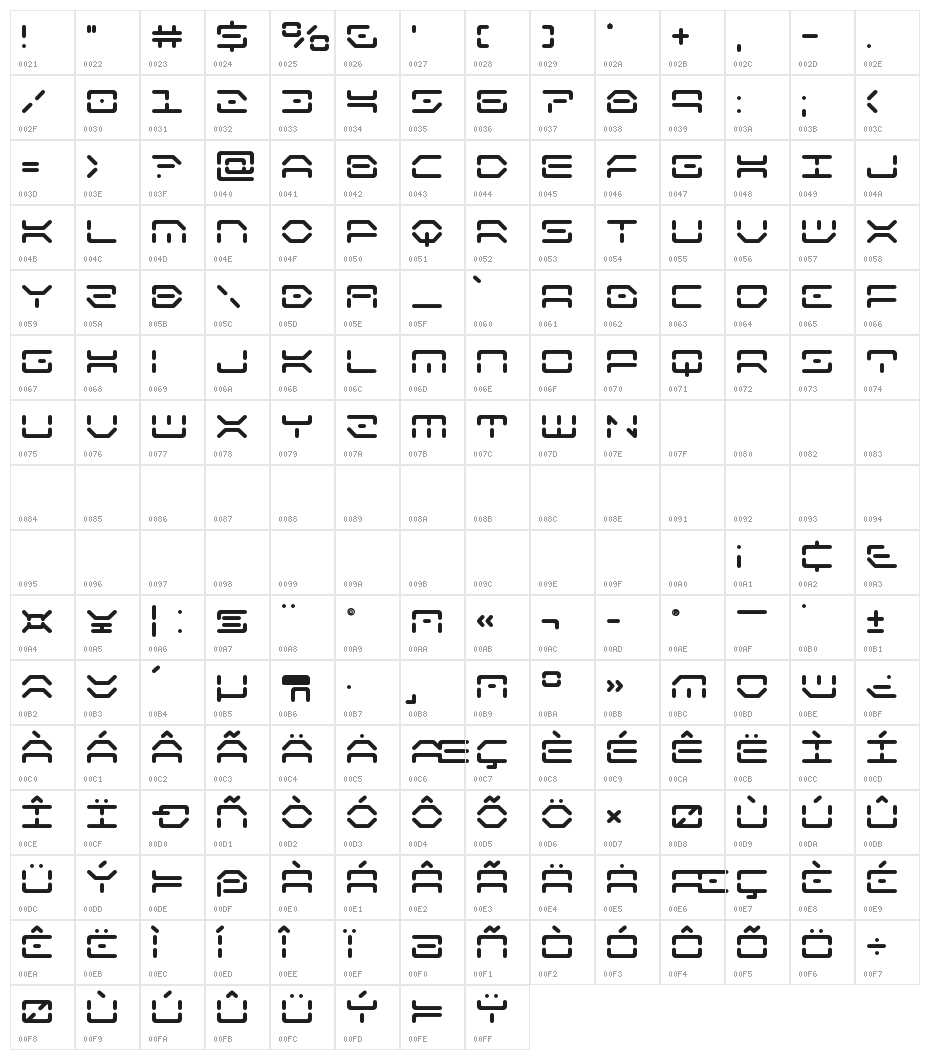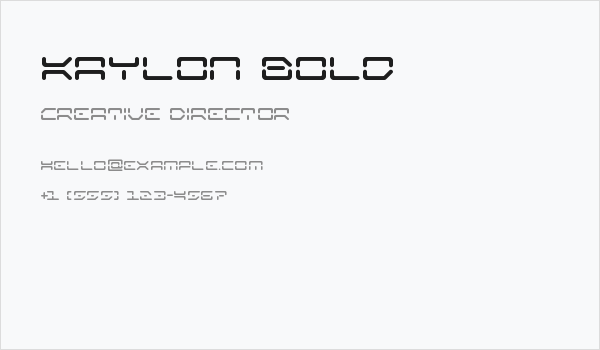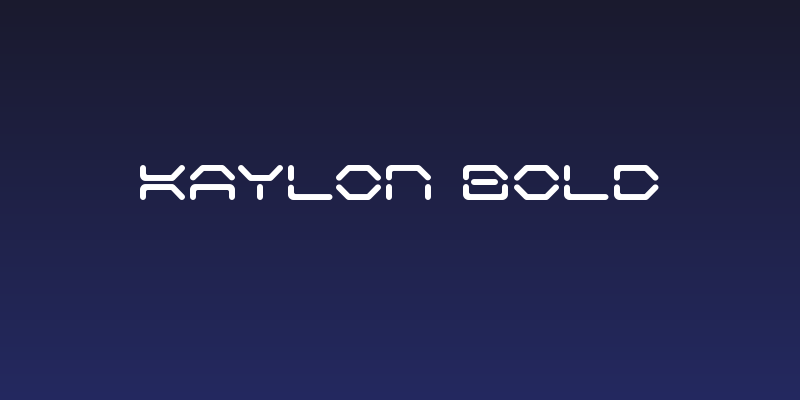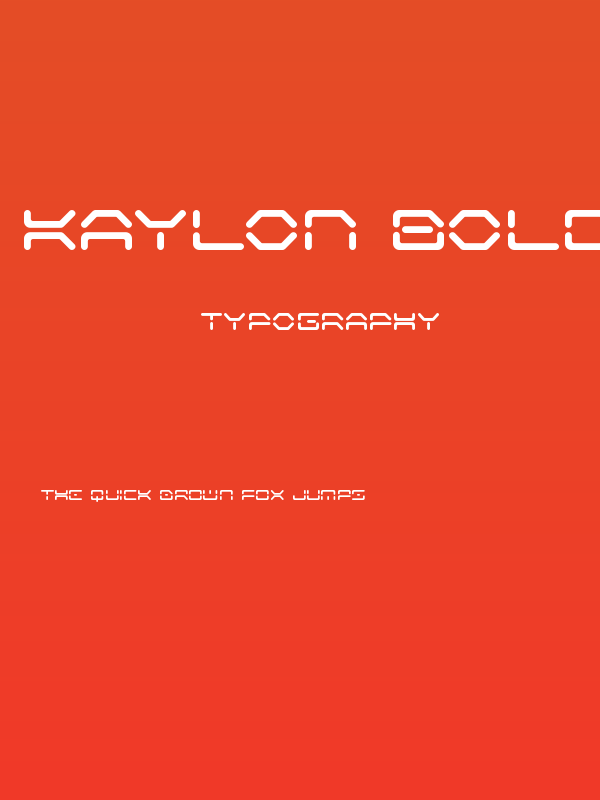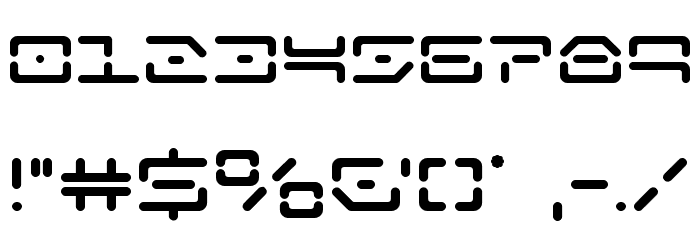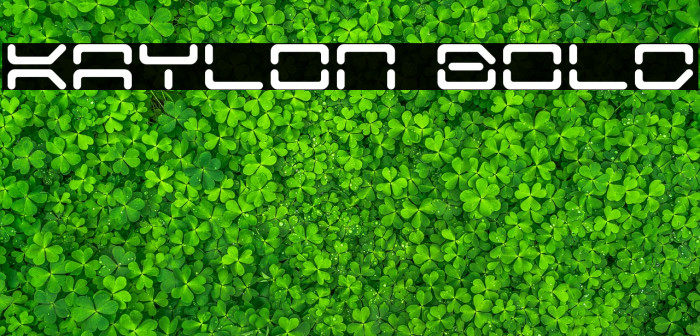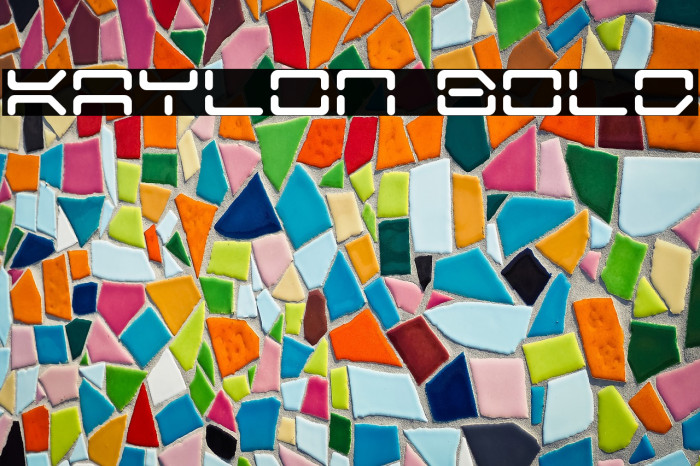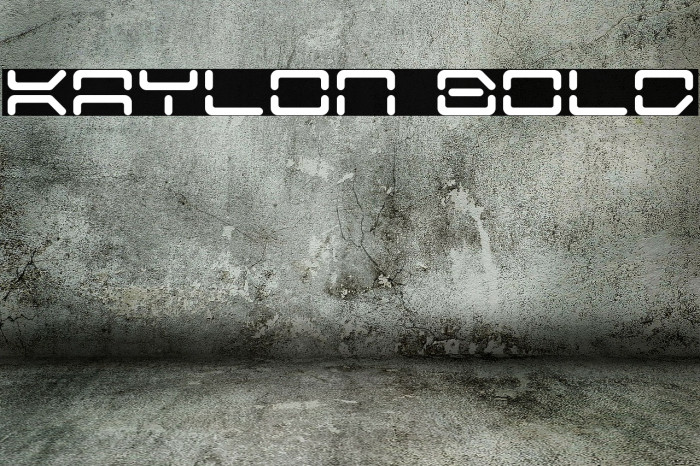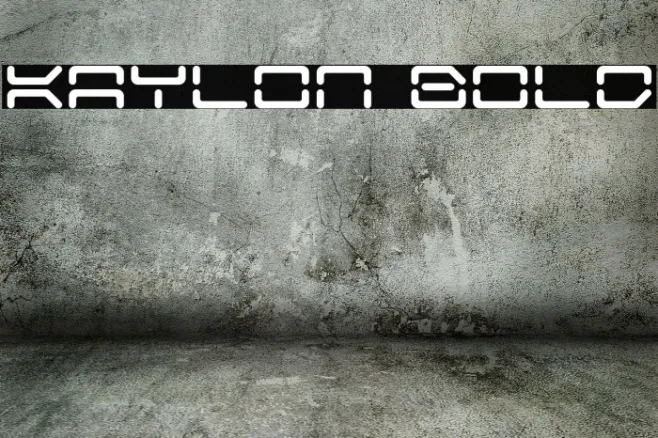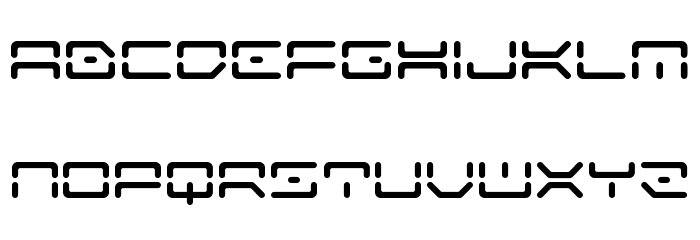
Kaylon Bold Font
Kaylon Bold Description
This font features a futuristic and geometric design with a distinct digital aesthetic. Each character is composed of bold, rounded segments that create a sense of continuity and flow. The uppercase and lowercase letters maintain a consistent style, with a uniform thickness that emphasizes clarity and readability. The numbers and special characters are designed to complement the alphabet, maintaining the same structural integrity and visual appeal. The font's unique style makes it ideal for projects that require a modern and tech-savvy appearance, such as digital interfaces, gaming titles, or sci-fi themed designs.
| Proposed Projects | Ideal for digital interfaces, gaming titles, sci-fi themes, and tech branding. |